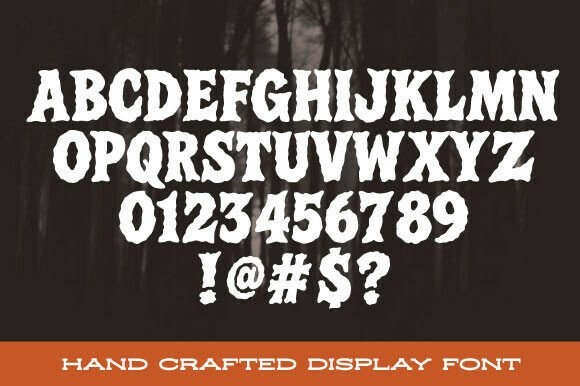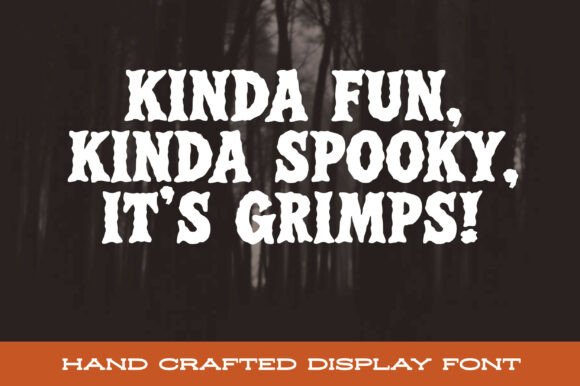
Grimps Font: Unleash the Wild West’s Ghoulish Charm in Your Designs
Are you tired of using the same old fonts in your designs? Do you want to add a touch of the supernatural and the rugged power of the Wild West to your projects? Look no further than Grimps Font, a bold, hand-drawn display font that’s sure to make your designs stand out.
The Inspiration Behind Grimps Font
Grimps Font is inspired by the dusty, forgotten towns of the American West. Its thick, stamped letters seem to echo the decay and neglect of a ghost town, while also evoking the eerie charm of the supernatural. Every edge of the font feels rough and imperfect, like something carved into wood with a rusty knife. This unique aesthetic makes Grimps Font perfect for designers and crafters looking to add a touch of ghoulish Western grit to their projects.
Characteristics of Grimps Font
Grimps Font is a bold, hand-drawn display font that’s designed to make a statement. Some of its key characteristics include:
- Bold and eye-catching: Grimps Font is a bold, attention-grabbing font that’s sure to make your designs stand out.
- Hand-drawn: The font’s hand-drawn aesthetic gives it a unique, organic feel that’s perfect for designs that need a touch of personality.
- Rough and imperfect: The font’s rough, imperfect edges add to its Wild West aesthetic, giving it a sense of grit and ruggedness.
- Supernatural charm: Grimps Font’s eerie charm is perfect for designs that need a touch of the supernatural, such as horror posters or Halloween labels.
Uses for Grimps Font
Grimps Font is a versatile font that can be used in a variety of design projects. Some ideas for using Grimps Font include:
- Horror posters: Grimps Font’s bold, attention-grabbing aesthetic makes it perfect for horror posters and other spooky designs.
- Halloween labels: Add a touch of ghoulish charm to your Halloween labels and packaging with Grimps Font.
- Whiskey brands: Grimps Font’s rugged, Wild West aesthetic makes it perfect for whiskey brands and other products that need to evoke a sense of ruggedness and power.
- Western-themed designs: Grimps Font is perfect for any design that needs a touch of the Wild West, such as wanted posters, saloon signs, or cowboy-themed designs.
Tips for Using Grimps Font
Here are a few tips for using Grimps Font in your designs:
- Use it sparingly: Grimps Font is a bold font that’s best used sparingly. Try using it for headings or titles, and pairing it with a simpler font for body text.
- Experiment with colors: Grimps Font looks great in a variety of colors, from bold and bright to muted and distressed. Experiment with different colors to find the look that works best for your design.
- Pair it with other fonts: Grimps Font pairs well with a variety of other fonts, from simple sans-serifs to more ornate script fonts. Experiment with different pairings to find the look that works best for your design.
Grimps Font is a unique and versatile font that’s perfect for designers and crafters looking to add a touch of the supernatural and the rugged power of the Wild West to their projects. With its bold, hand-drawn aesthetic and eerie charm, Grimps Font is sure to make your designs stand out. Whether you’re creating horror posters, Halloween labels, or whiskey brands, Grimps Font is a great choice.